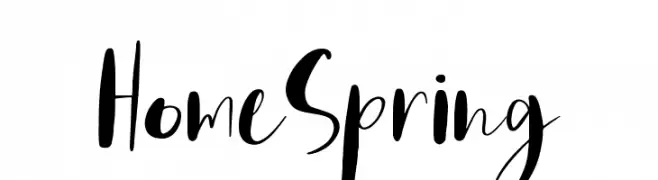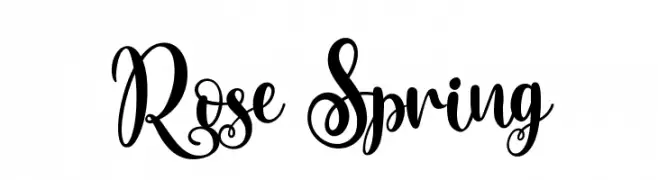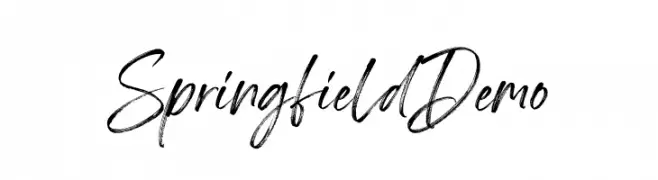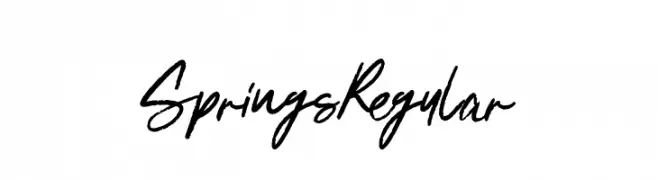
A lively, expressive handwritten font with fluid cursive strokes.
A playful, bold, and rounded hand-drawn font with a whimsical style.
A dynamic, hand-drawn font with expressive, fluid strokes.
A bold, brush-style font with a lively, hand-painted appearance.
An elegant and decorative script font with ornate loops and swirls.
An elegant and flowing script font with ornate, decorative letterforms.
A playful, handwritten font with bold, flowing strokes and tight character spacing.
A dynamic handwritten font with fluid, slightly irregular strokes and a casual, elegant style.
A playful, whimsical script font with a hand-drawn appearance.
A dynamic, hand-drawn style font with elongated strokes and playful flair.